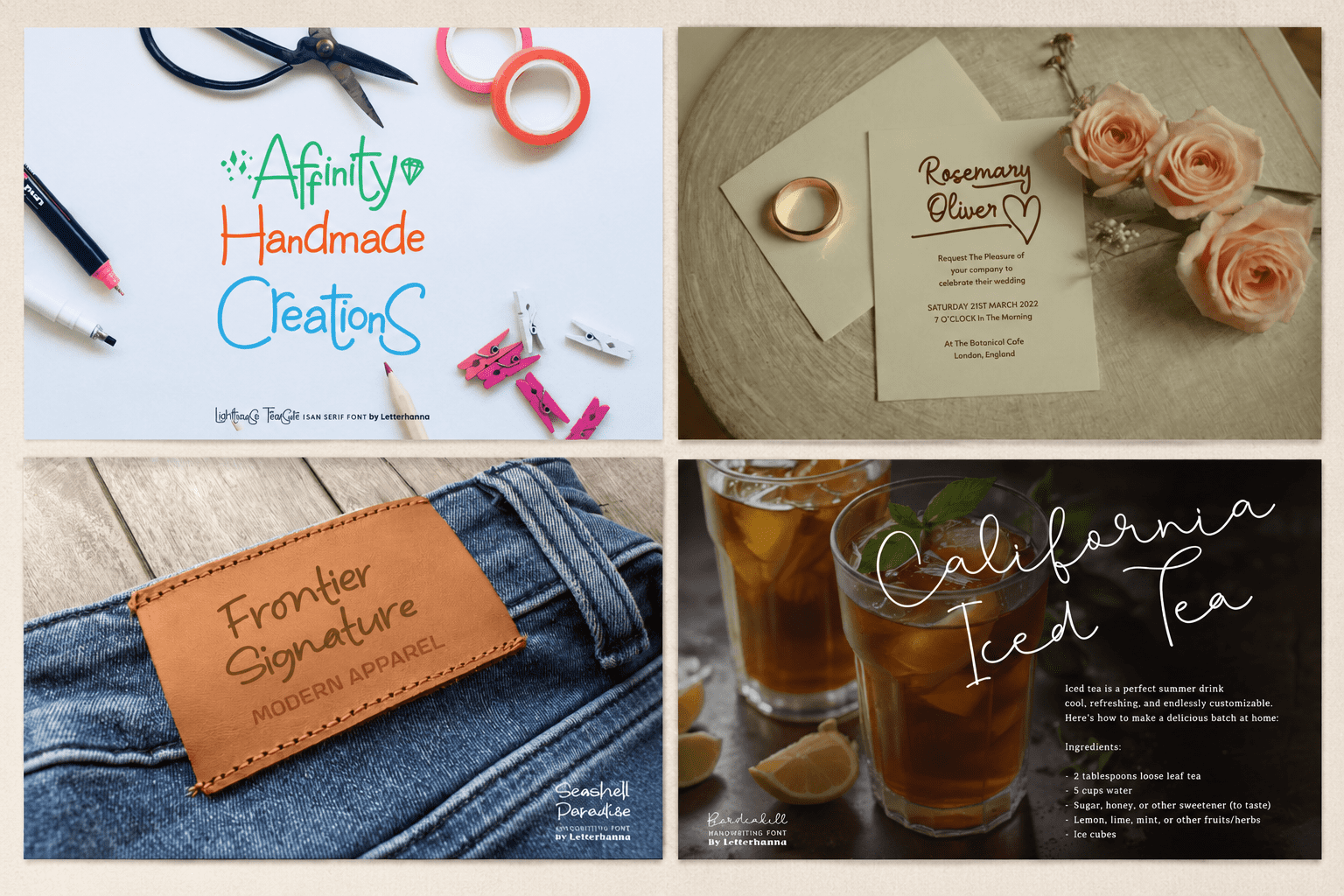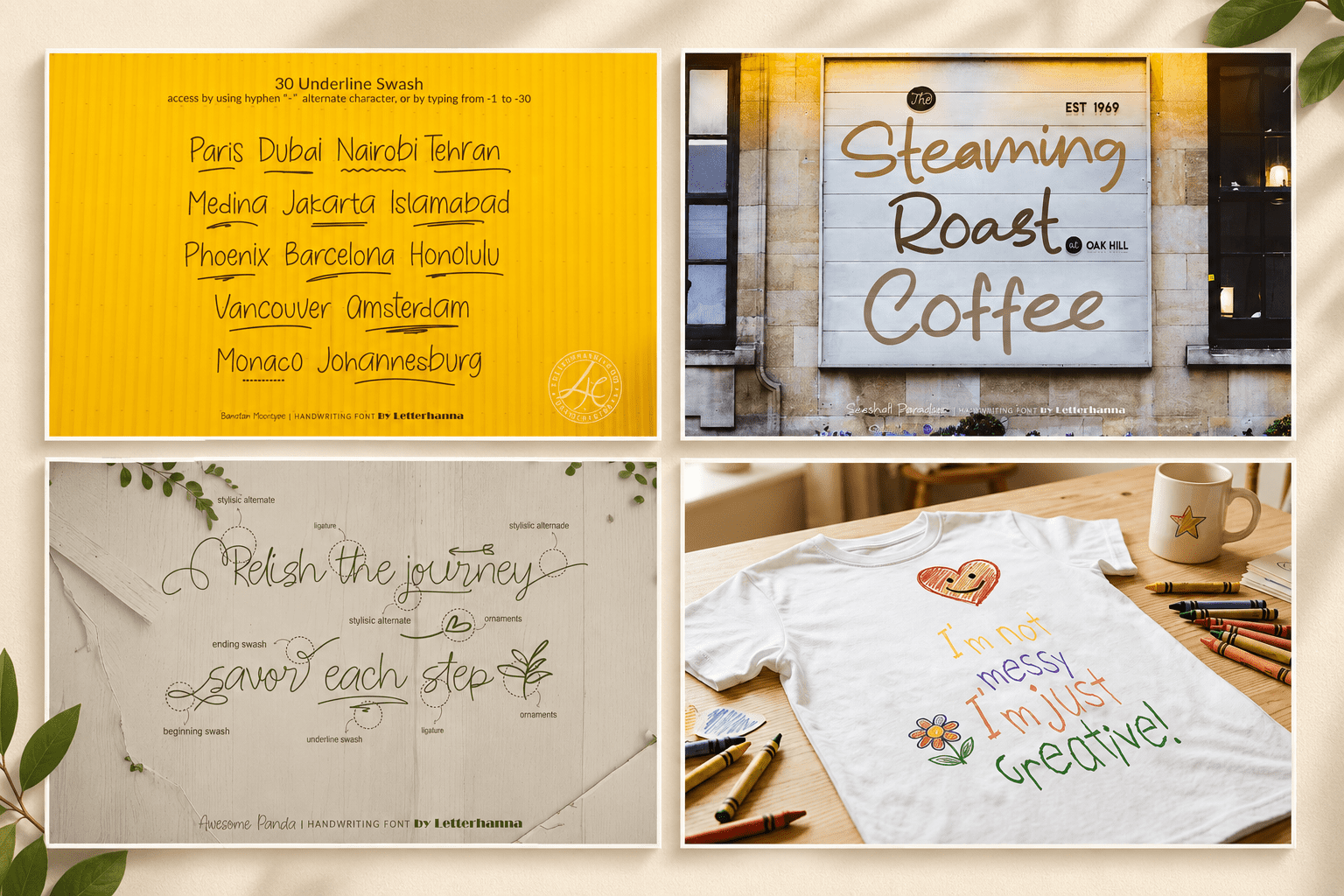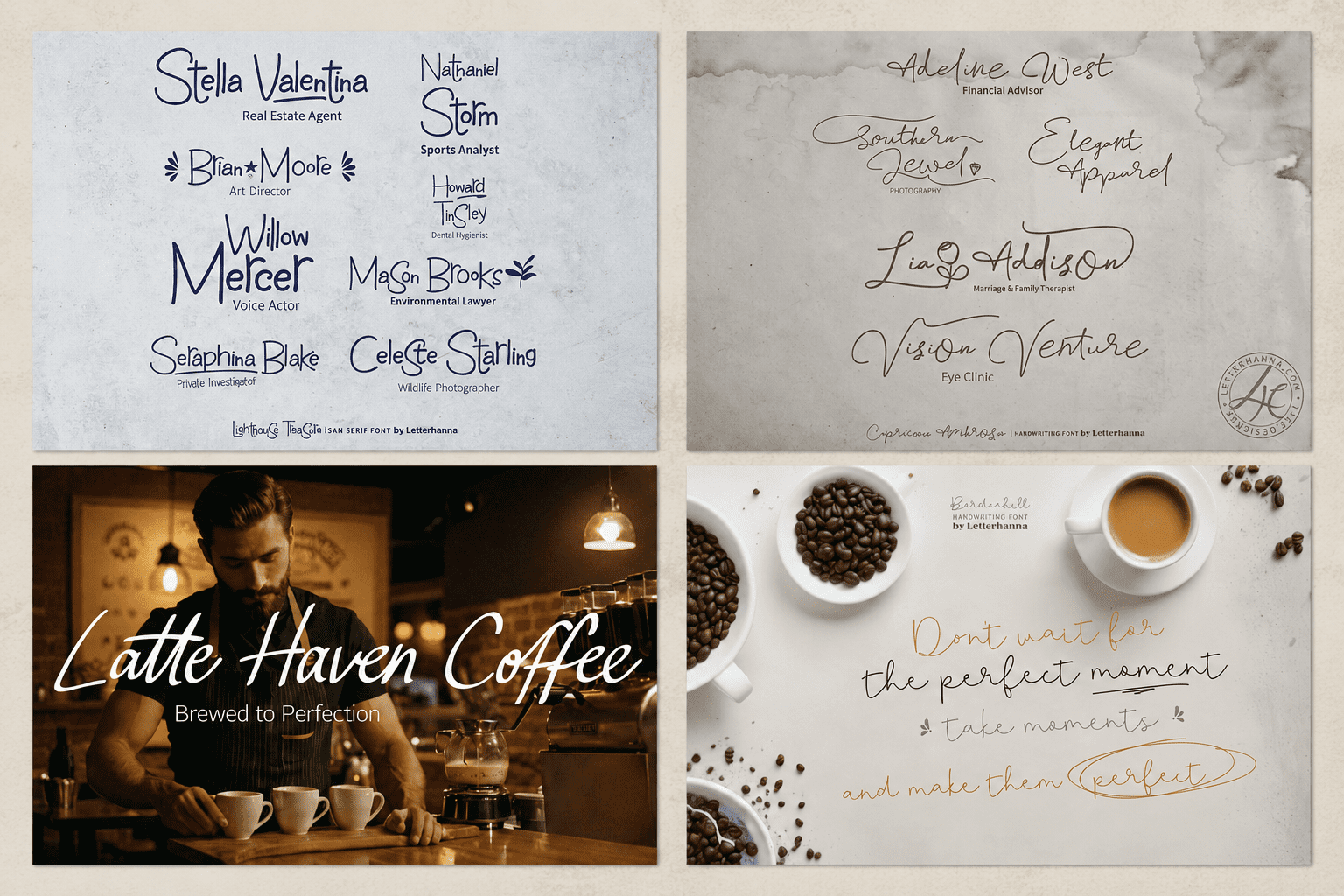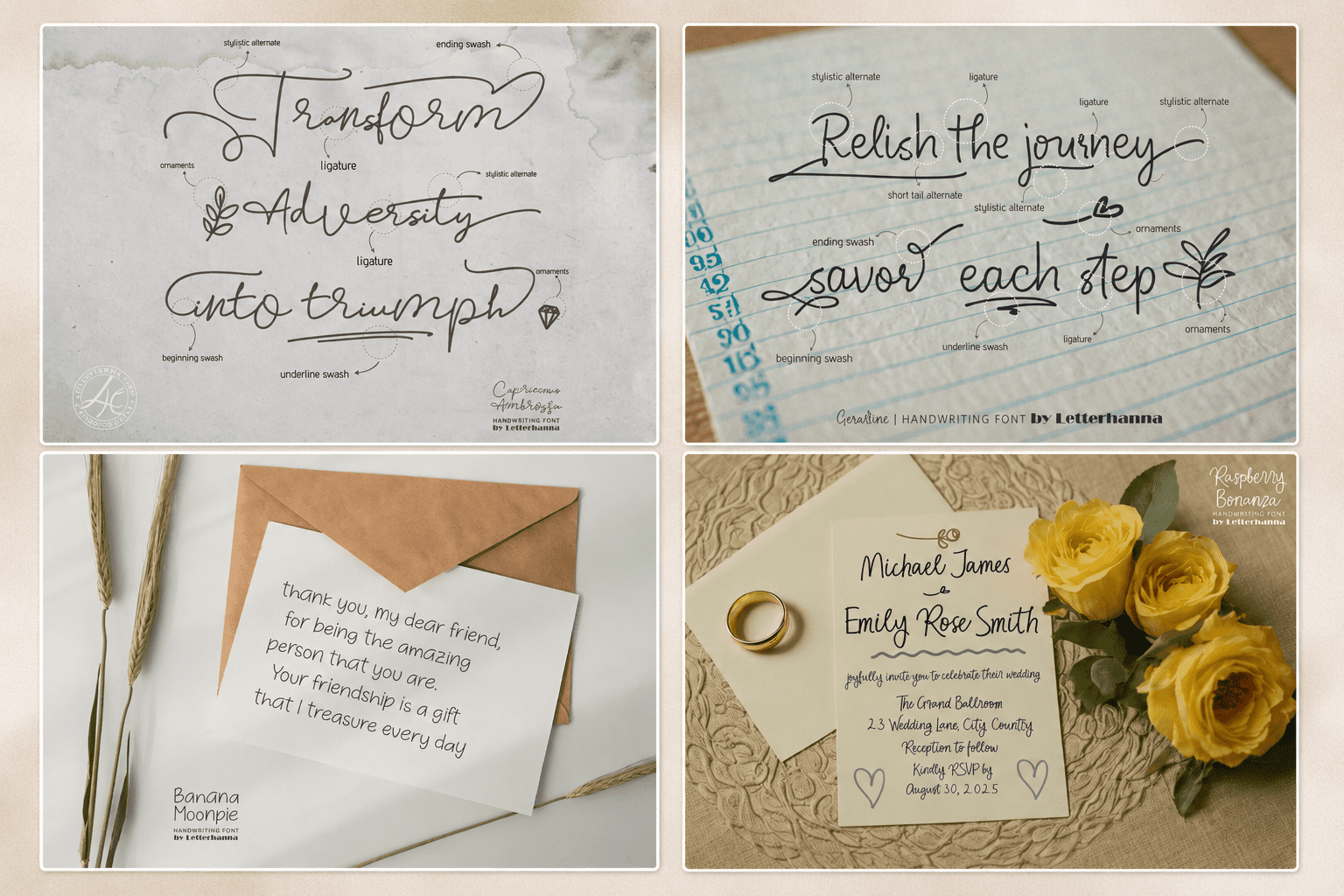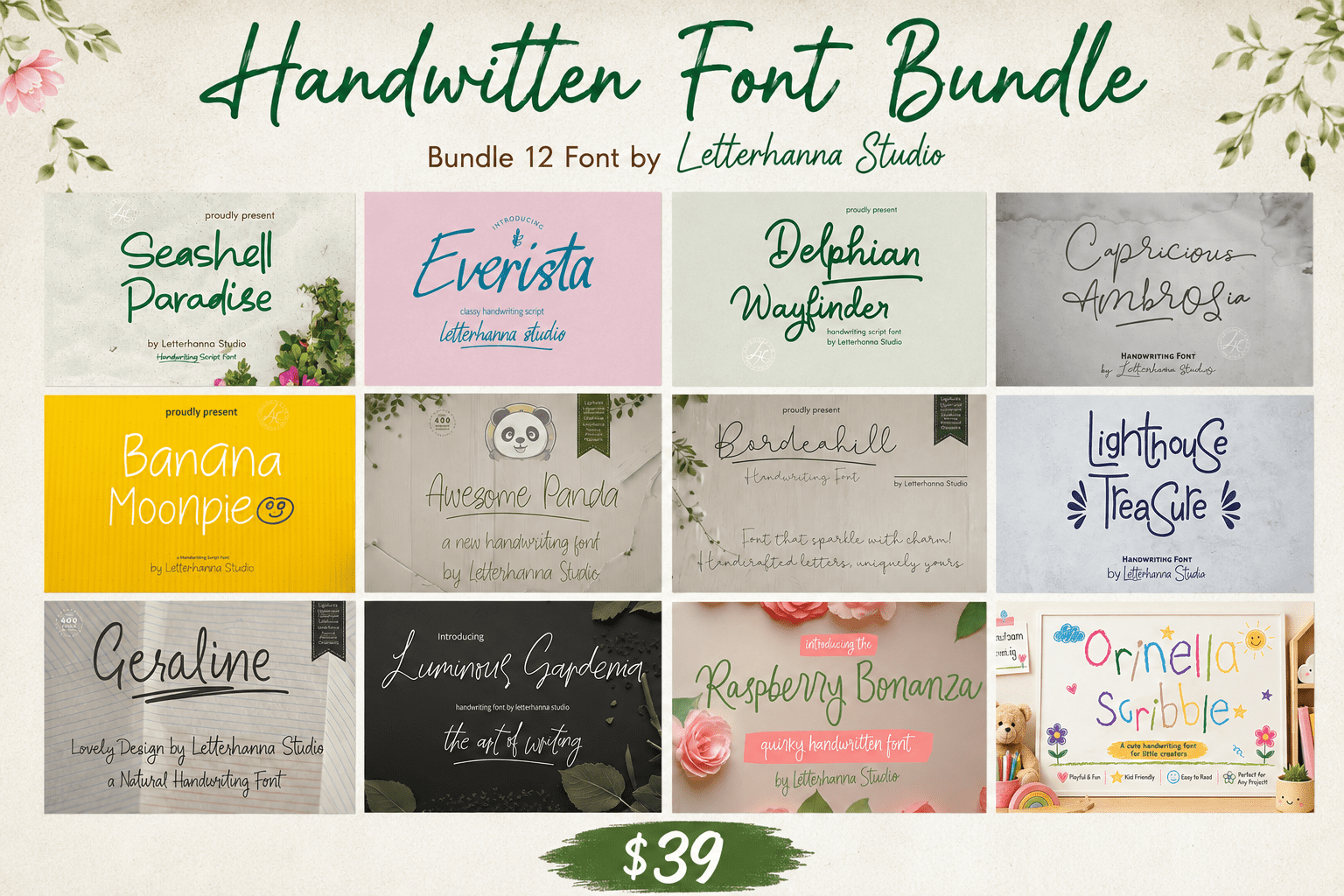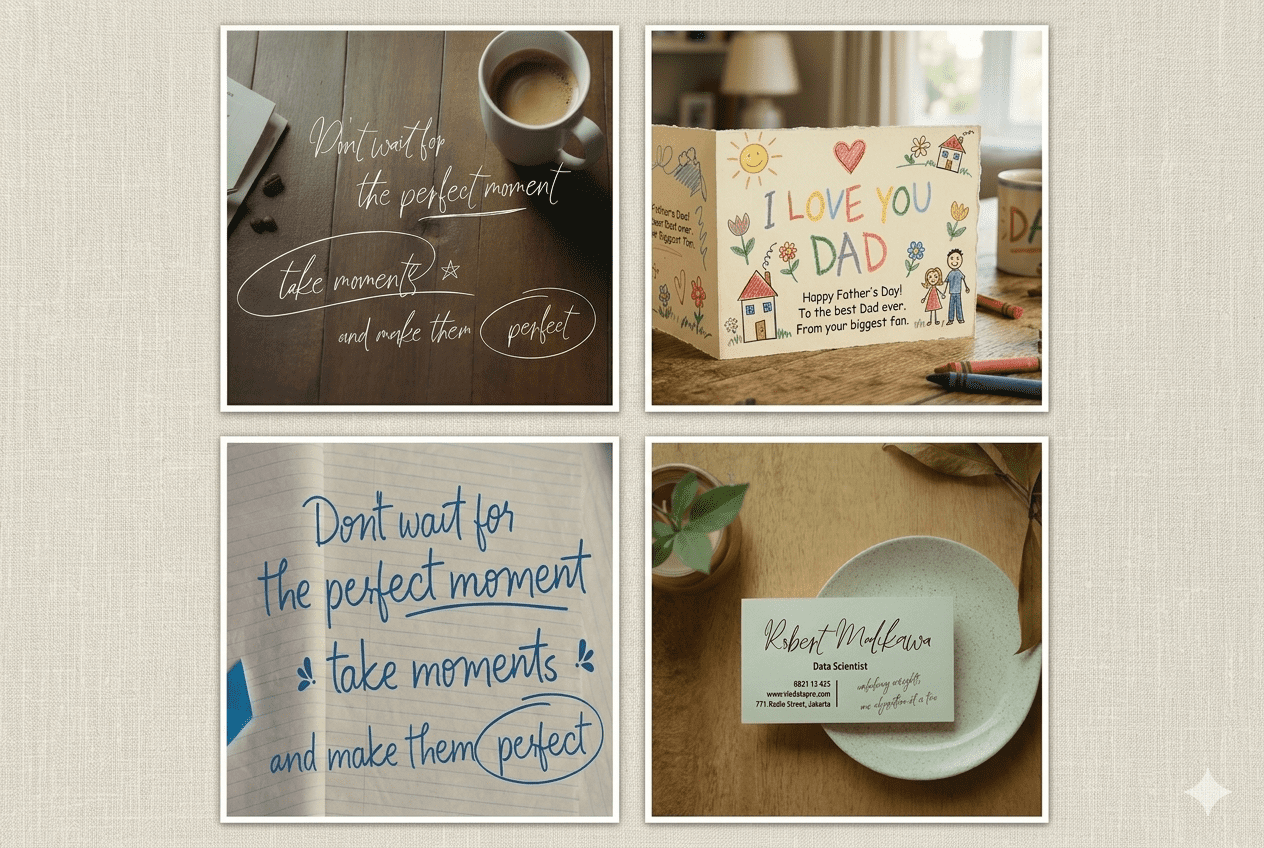
Whether you’re designing wedding invitations, branding materials, social media graphics, children’s books, or product packaging — this bundle has a font personality for every project:
Seashell Paradise & Delphian Wayfinder — elegant script styles perfect for wedding and luxury designs
Everista — a classy handwriting script with refined charm
Capricious Ambrosia — an organic, flowing style for editorial and boutique aesthetics
Banana Moonpie — bold and playful, made for standout headlines
Awesome Panda — casual and friendly, great for kids and lifestyle brands
Bordeahill — a sparkling handwritten font full of personality
Lighthouse Treasure — hand-lettered quirk meets clean legibility
Geraline — a natural, everyday handwriting feel
Luminous Gardenia — moody and artistic, perfect for dark-themed designs
Raspberry Bonanza — quirky and fun, ideal for food brands and playful packaging
Orinella Scribble — cute and kid-friendly, built for little creators